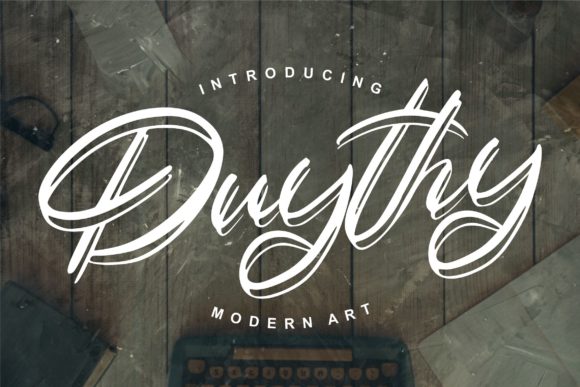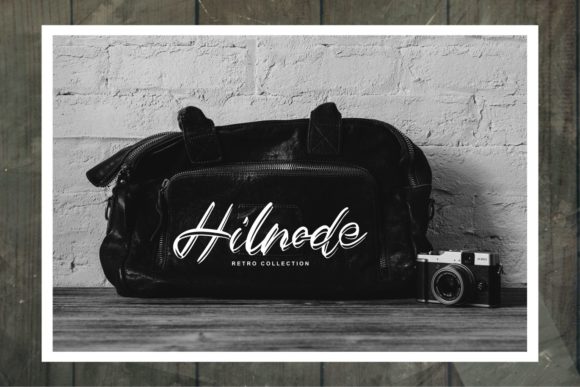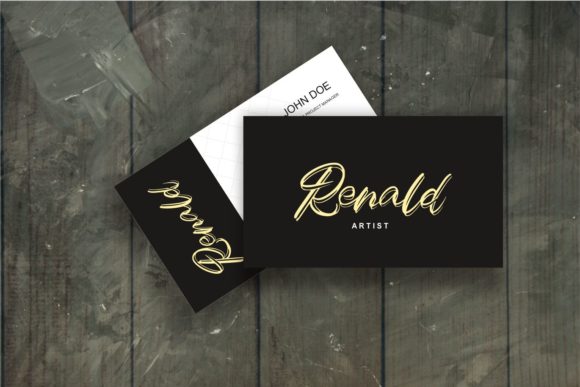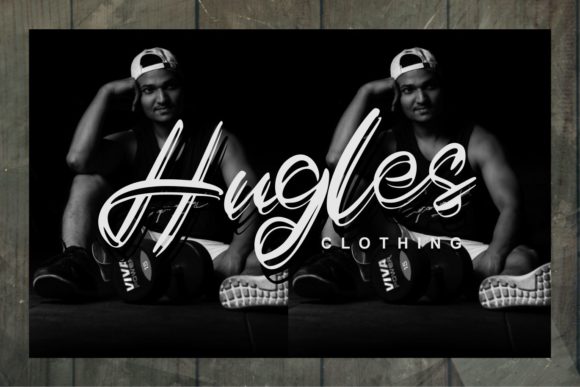
Duythy Font
About Duythy Font
Duythy is a dazzling script font that will elevate any design project such as greeting cards, branding materials, business cards, quotes, posters, and more!